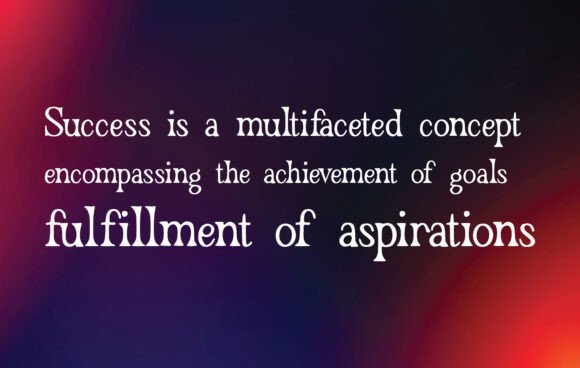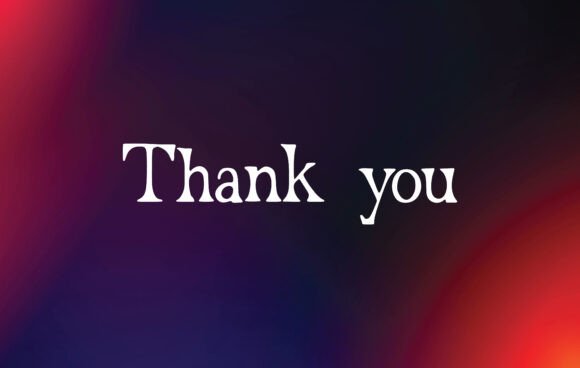
Introducing Goldenrod Font: Elevate Your Creative Projects with Style and Versatility
Are you on the lookout for a font that can seamlessly blend style and versatility, making it a perfect addition to your collection? Look no further than the Goldenrod Font. Crafted with precision and creativity, this font is designed to become a go-to favorite for designers and crafters alike. Its unique characteristics make it an ideal choice for a wide range of projects, from magazine headlines and t-shirts to social media posts, branding materials, wedding invitations, and greeting cards.
The Perfect Blend of Style and Versatility
Goldenrod Font strikes the perfect balance between aesthetics and functionality. Its design ensures that it is not only visually appealing but also highly legible, making it suitable for both titles and body text. This versatility is a key feature that sets Goldenrod Font apart, allowing it to adapt effortlessly to various design needs.
Easy to Read and Visually Appealing
One of the standout features of Goldenrod Font is its readability. In an era where digital content is king, having a font that can convey your message clearly and effectively is crucial. Goldenrod Font meets this requirement with ease, ensuring that your audience can engage with your content without any visual strain. Additionally, its aesthetic appeal makes it a great choice for designers looking to add a touch of elegance or sophistication to their projects.
Endless Applications for Creative Projects
The versatility of Goldenrod Font is perhaps its most compelling attribute. Here are some of the many creative ways you can utilize this font:
- Magazine Headlines: Create eye-catching titles that draw readers in. The font’s unique style ensures that your magazine stands out on the newsstand.
- T-Shirts and Apparel: Design custom apparel that turns heads. Goldenrod Font’s clarity and style make it perfect for quotes, slogans, and branding.
- Social Media Posts: Enhance your online presence with professional-looking posts. The font’s readability ensures your message gets across effectively, even on smaller screens.
- Branding Materials: Develop a consistent brand identity with Goldenrod Font. Its professional look makes it suitable for logos, brochures, and business cards.
- Wedding Invitations and Greeting Cards: Add a personal touch to special occasions with beautifully designed invitations and cards. The font’s elegance ensures your event or message is memorable.
Why Choose Goldenrod Font?
With so many fonts available, why should Goldenrod Font be your top choice? The answer lies in its unique combination of style, versatility, and readability. Unlike fonts that are either stylish but hard to read or legible but bland, Goldenrod Font offers the best of both worlds. It’s designed to elevate your creative projects, making them more engaging and professional.
Tips for Maximizing Goldenrod Font’s Potential
To make the most out of Goldenrod Font, consider the following tips:
- Experiment with Sizes: While Goldenrod Font is designed to be legible at various sizes, experimenting with different sizes can help you find the perfect balance for your project.
- Play with Colors: The font’s design allows it to work well with a variety of color schemes. Don’t be afraid to experiment with different colors to find the one that best suits your project’s mood.
- Mix and Match: Combine Goldenrod Font with other fonts to create a unique look. Its versatility makes it a great base that can be paired with a variety of typefaces.
Goldenrod Font is more than just a typeface; it’s a tool that can transform your creative projects. With its perfect blend of style, versatility, and readability, it’s poised to become an indispensable part of your design arsenal. Whether you’re a seasoned designer or a crafting enthusiast, Goldenrod Font offers the potential to elevate your work and make it stand out. So why wait? Explore the possibilities of Goldenrod Font today and discover how it can enhance your creative projects.